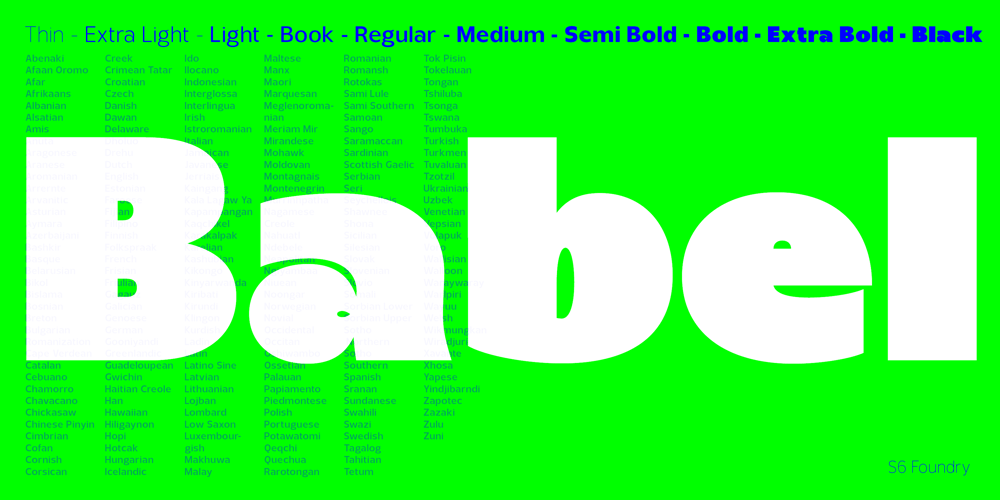
Babel Sans Font Family was designed by Paul Henry Robb and published by S6 Foundry. Babel Sans contains 10 styles and family package options. Babel Sans is a contemporary branding san serif with distinct letter forms, designed with classical proportions to produce a dynamic versatile OpenType typeface. The weights from Thin to Black, with over 400 characters per style integrate seamlessly, to offer a unique typeface, giving balance and form. Babel’s dynamic and expressive forms create perfect visual consistency, giving it that ideal sensation.